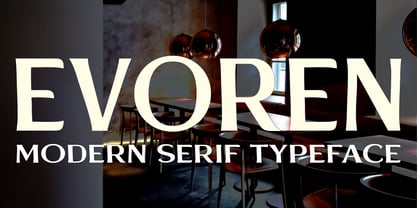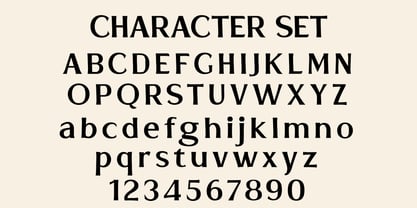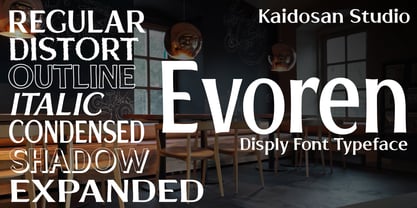
Evoren
by Kaidosan
The Evoren Font Family was designed by Muhammad Ansari and published by Kaidosan. Evoren contains 7 styles and family package options.
Evoren – Modern & Versatile Serif Display with 7 Distinct Styles Evoren is a modern and versatile serif display typeface designed to deliver an elegant, artistic, and character-rich impression. With its combination of sharp serif details and smooth refined curves, Evoren offers a contemporary look perfectly suited for branding, editorial layouts, packaging, and premium creative projects. This typeface comes as a complete family with 7 unique styles: Regular Italic Outline Shadow Distort Expanded Condensed Each style is crafted with strong visual consistency, allowing you to mix and match the entire family to create dynamic and diverse typographic compositions. Display Features for Creative Expression As a serif display typeface, Evoren includes: Unique and artistic alternates, offering more decorative and expressive styling options. Elegant ligatures, adding a refined and professional touch to every text. Carefully shaped letterforms that look modern and expressive while remaining highly legible. Perfect for Premium Visual Projects Evoren works beautifully for: Branding & Logo Design Magazines & Editorial Packaging & Labeling Posters Display Titles Social Media Visuals Luxury Design Projects With its flexible 7-style family and complete OpenType features, Evoren is an ideal choice for designers seeking a modern, elegant, and distinctive serif display typeface